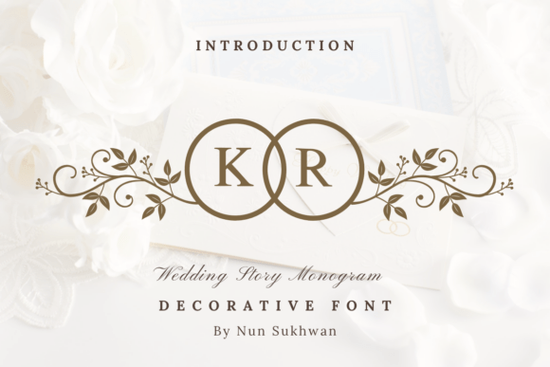
If you're looking for a handmade-style typeface that works beautifully for romantic projects, the Wedding Story Monogram Font is worth a closer look. It's a Wedding Story Monogram handwritten font designed for everything from personal note-taking to polished commercial projects like greeting cards, stationery, and social media graphics.
What Makes a Handwritten Monogram Font Useful for Designers?
Handwritten fonts give your work a personal, human feel that clean sans-serifs and traditional serifs can't always deliver. A monogram style goes a step further it adds an ornamental quality that works especially well for initials, names, and short decorative text.
The Wedding Story Monogram Font has that soft, flowing script look with connected letterforms. It reads well at medium to large sizes, which makes it ideal for:
- Greeting cards and invitations
- Wedding signage and table numbers
- DIY journals and planners
- Mug and t-shirt designs for print-on-demand
- Social media quote posts and story templates
- Blog headers and Pinterest graphics
If you work with decorative display typefaces, you already know that pairing a script font with something bold and geometric can create strong visual contrast. The Wedding Story Monogram Font pairs nicely with clean sans-serifs or even structured decorative options like Nebula Font for projects that need more visual weight.
Is This Font a Good Fit for Print-on-Demand Sellers?
Yes and here's why it matters. Print-on-demand platforms like Redbubble, Merch by Amazon, and Etsy thrive on designs that feel personal and handmade. Customers browsing for wedding gifts, anniversary items, or couple-themed products respond well to script and monogram styles.
You can use the Wedding Story Monogram Font on:
- Mugs and drinkware initials or short names on ceramic cups
- T-shirts and sweatshirts couple names, wedding dates, or romantic quotes
- Tote bags and accessories decorative monograms for bridal party gifts
- Wall art prints framed quotes or personalized family name designs
- Greeting cards sold as printable downloads or printed sets
The key is to keep your text short and let the font do the heavy lifting. Monogram-style scripts look their best with fewer than ten words. Long paragraphs in a handwritten font can become hard to read, especially on smaller products.
How Does It Compare to Other Decorative Fonts?
There are plenty of script and monogram fonts available, so how does this one stack up? The Wedding Story Monogram Font leans soft and romantic rather than bold or edgy. It's not trying to be a one-size-fits-all typeface it's built for a specific mood.
If you need something with more of a futuristic or abstract feel for a different type of project, fonts like Nebula Font offer a completely different aesthetic. Having a few different decorative styles in your font library gives you flexibility across client projects and product lines.
But for wedding, romance, and feminine lifestyle designs, the Wedding Story Monogram Font fills a gap that many all-purpose fonts miss. Its connected letterforms and gentle curves feel authentic not overly polished or stiff.
- ✅ Pair it wisely combine with a simple sans-serif for body text to keep things readable
- ✅ Keep text short monogram and script fonts shine with names, initials, and short phrases
- ✅ Match the mood use it for romantic, wedding, or feminine-themed projects where it naturally fits